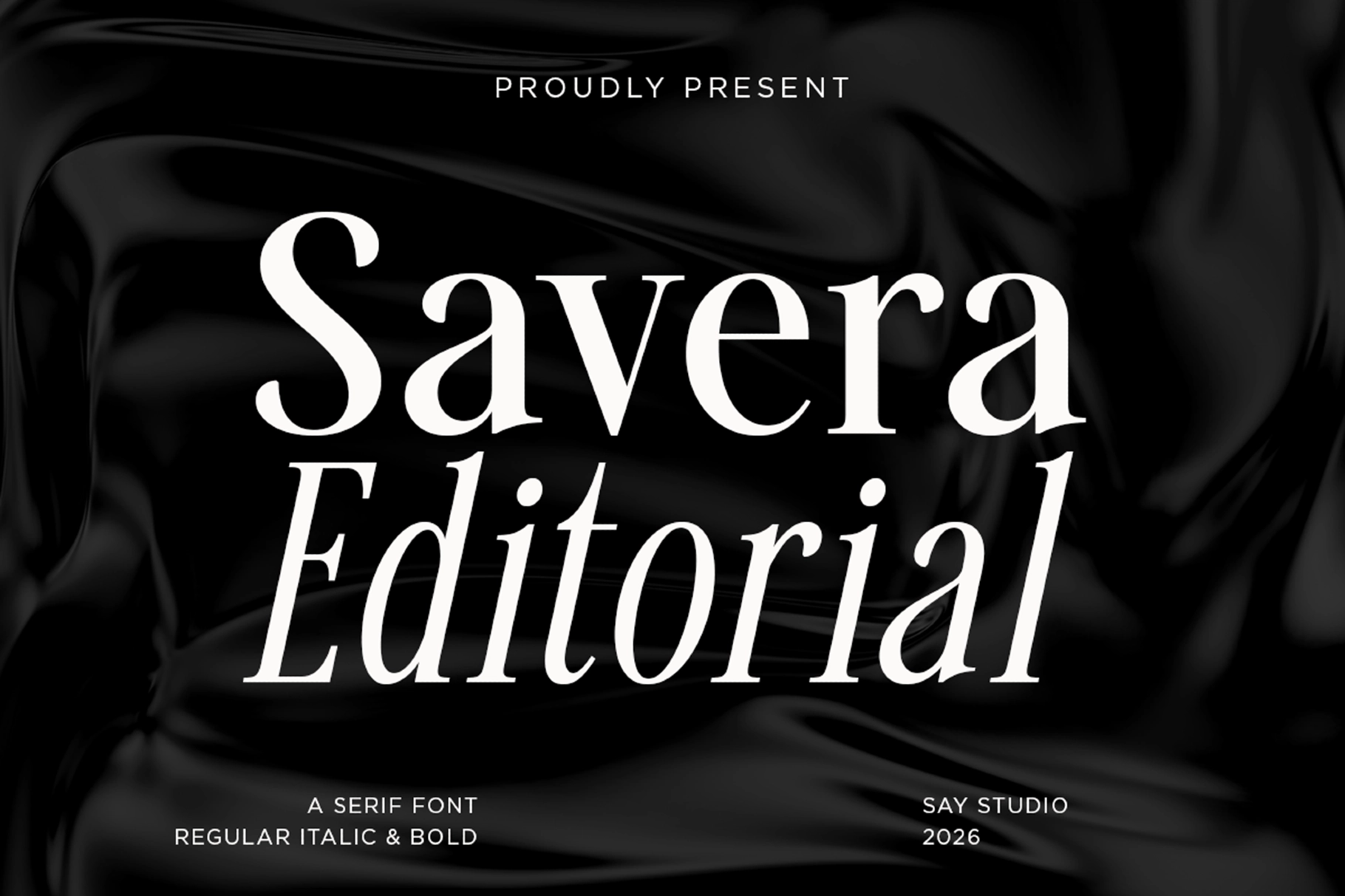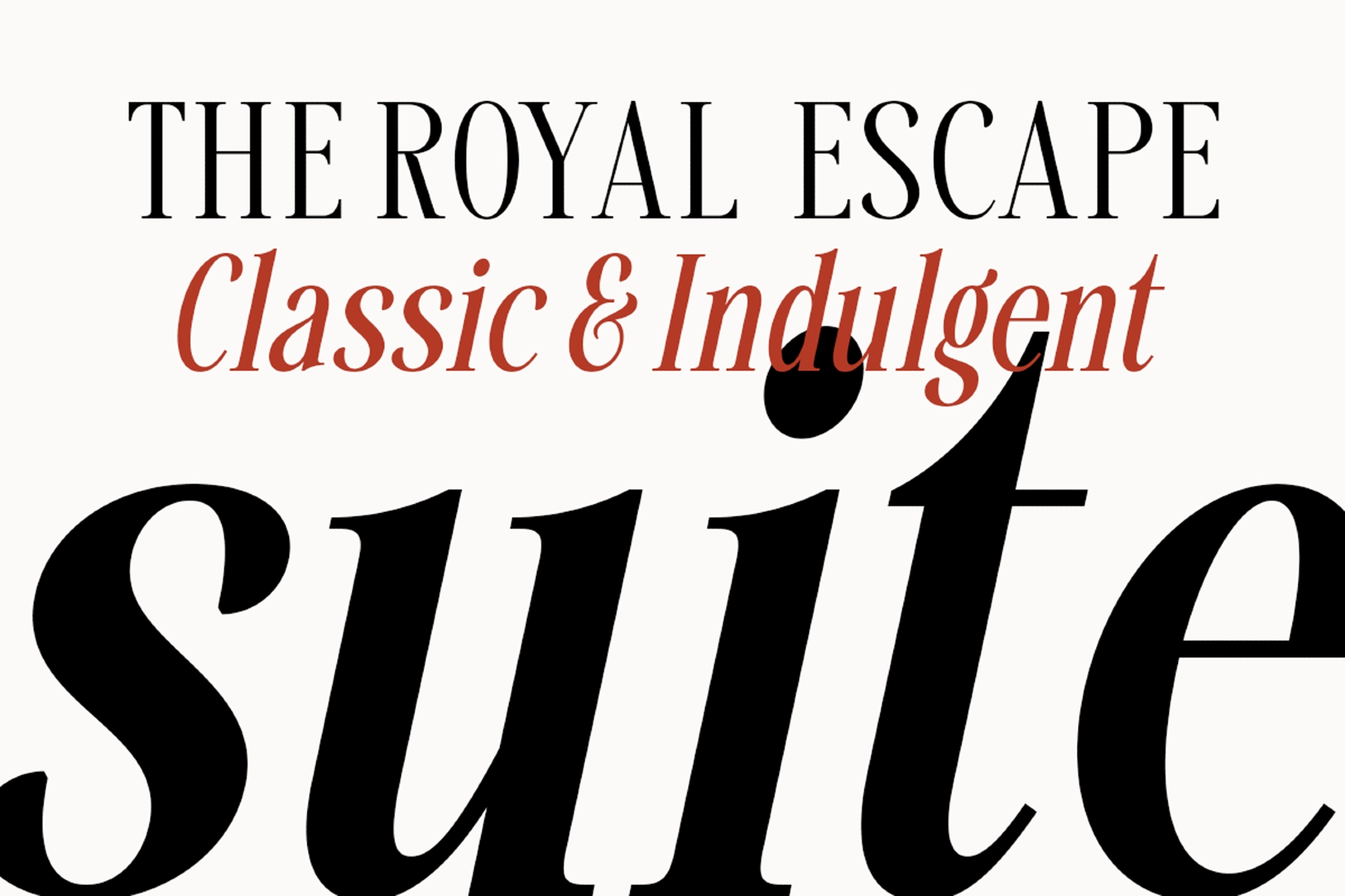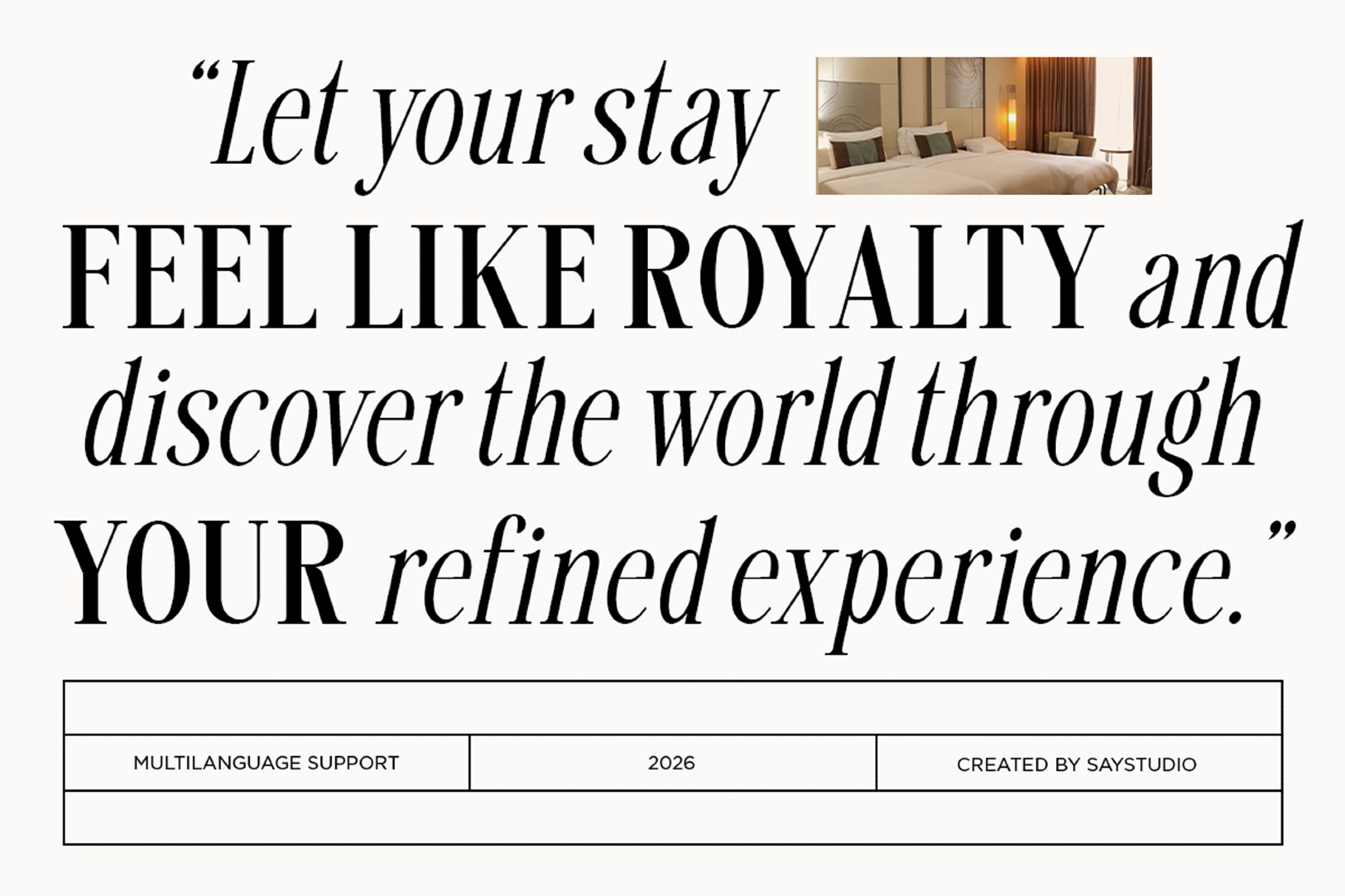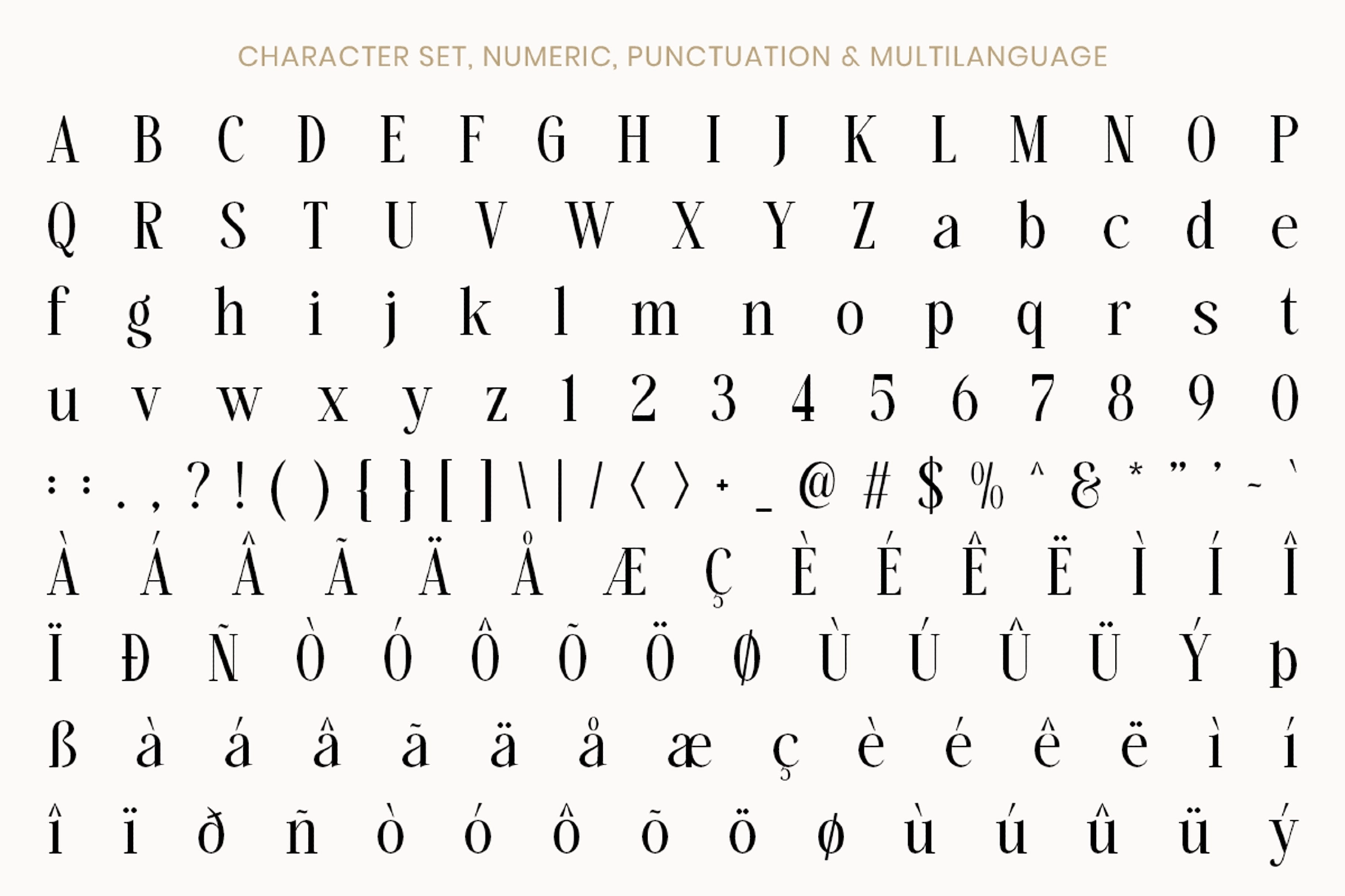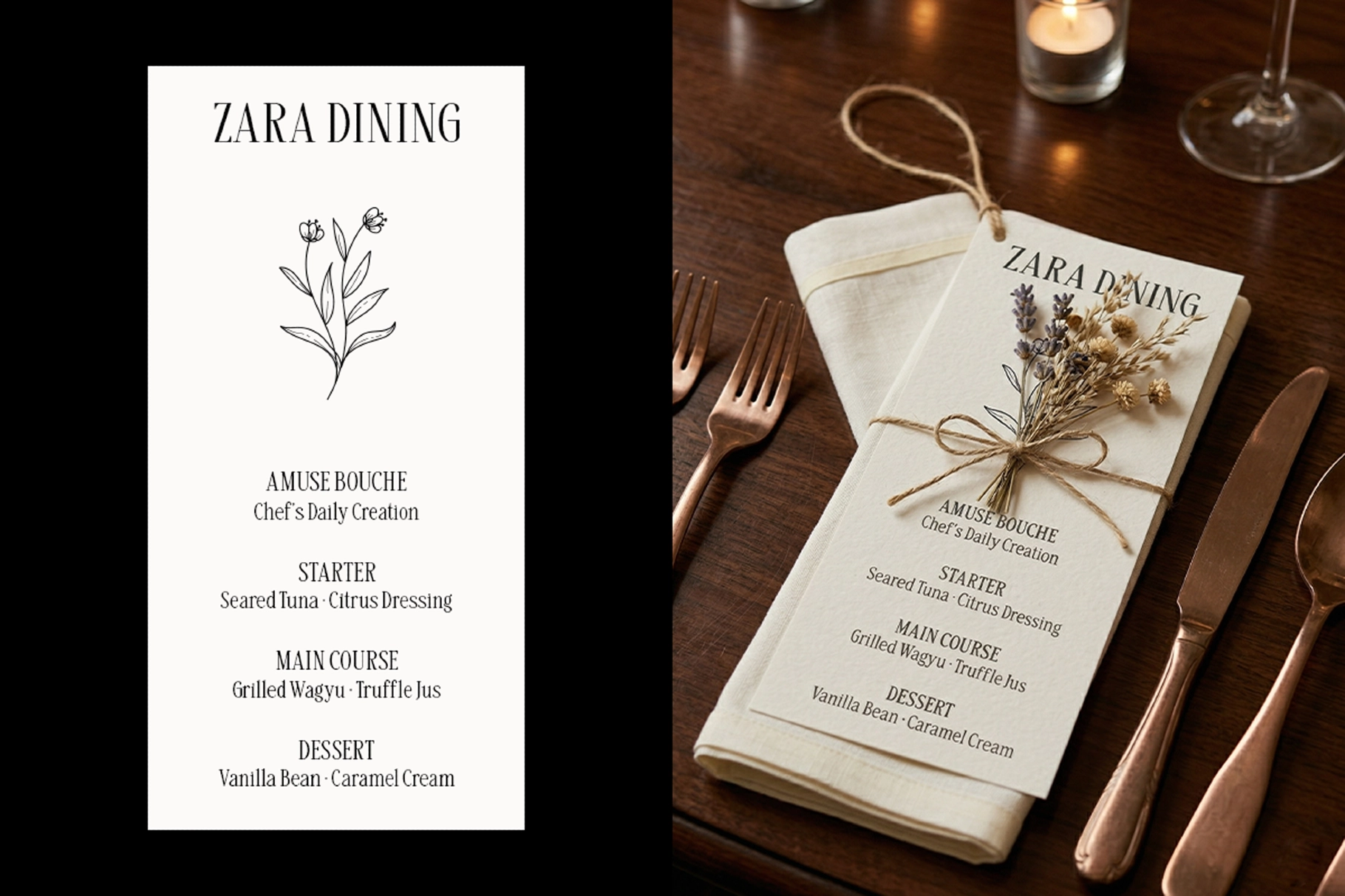
Savera Editorial - Classic Serif Font
Savera Editorial, Classic Serif Font draws from high-fashion magazines and Didot-style serif traditions, with poised high-contrast strokes and refined curves that echo classic European editorial design. It suits luxury magazines, fashion campaigns, upscale packaging, restaurant menus, brand identities, and elegant invitations, while italic styles lend themselves to pull quotes, headlines, and expressive typographic accents.